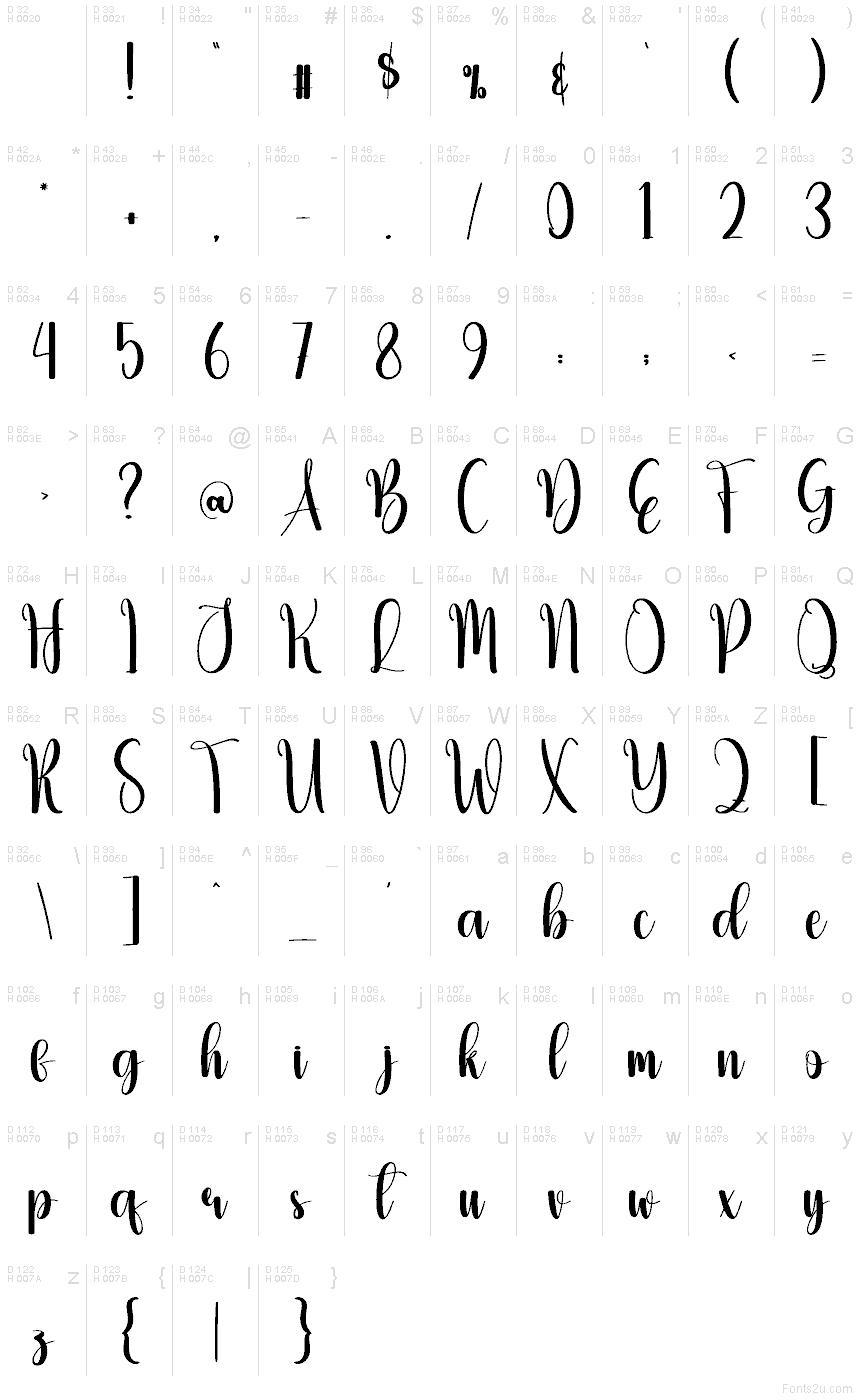
Beefting
Beefting font, designed by Scratchones, is a free calligraphy font that combines elegance with a whimsical and flowing script style. The font features lively curves and an expressive flair that together create a contemporary feel perfect for various design needs.
The artistic characteristics of Beefting make it useful in branding, packaging, posters, advertisements, event invitations, greeting cards, book covers, magazines covers and layouts! After all why choose something generic when you can have superior typography?